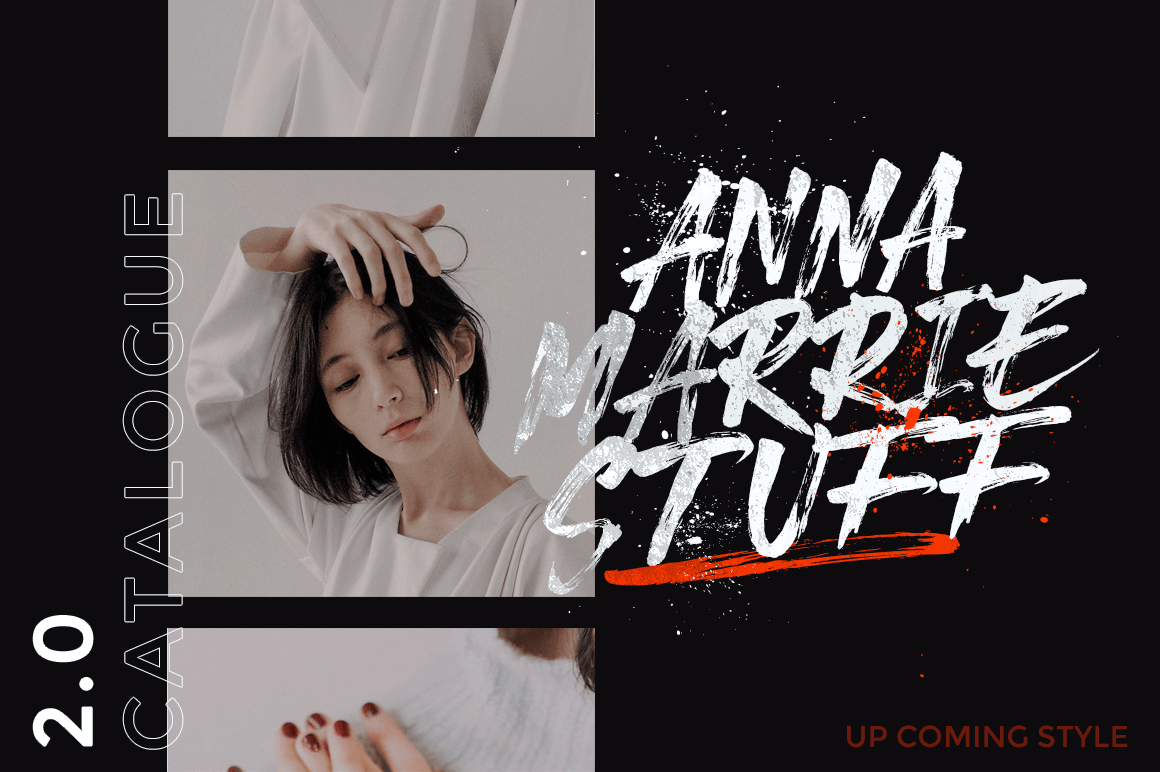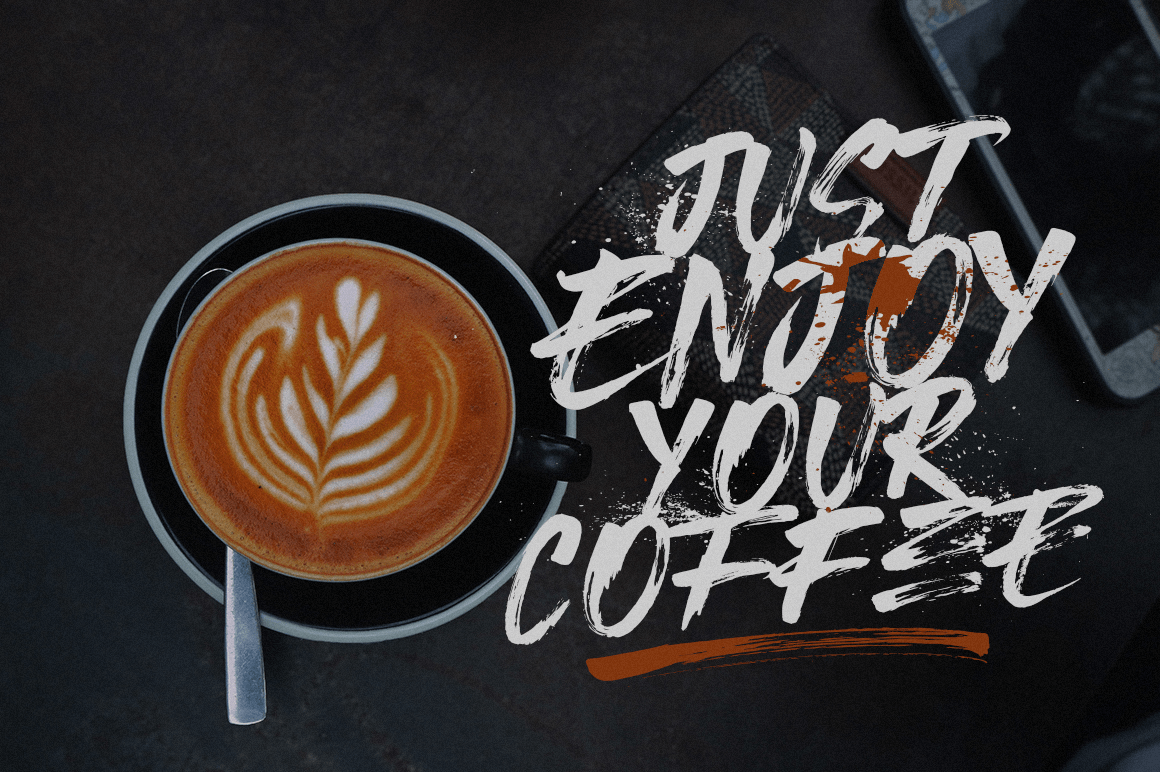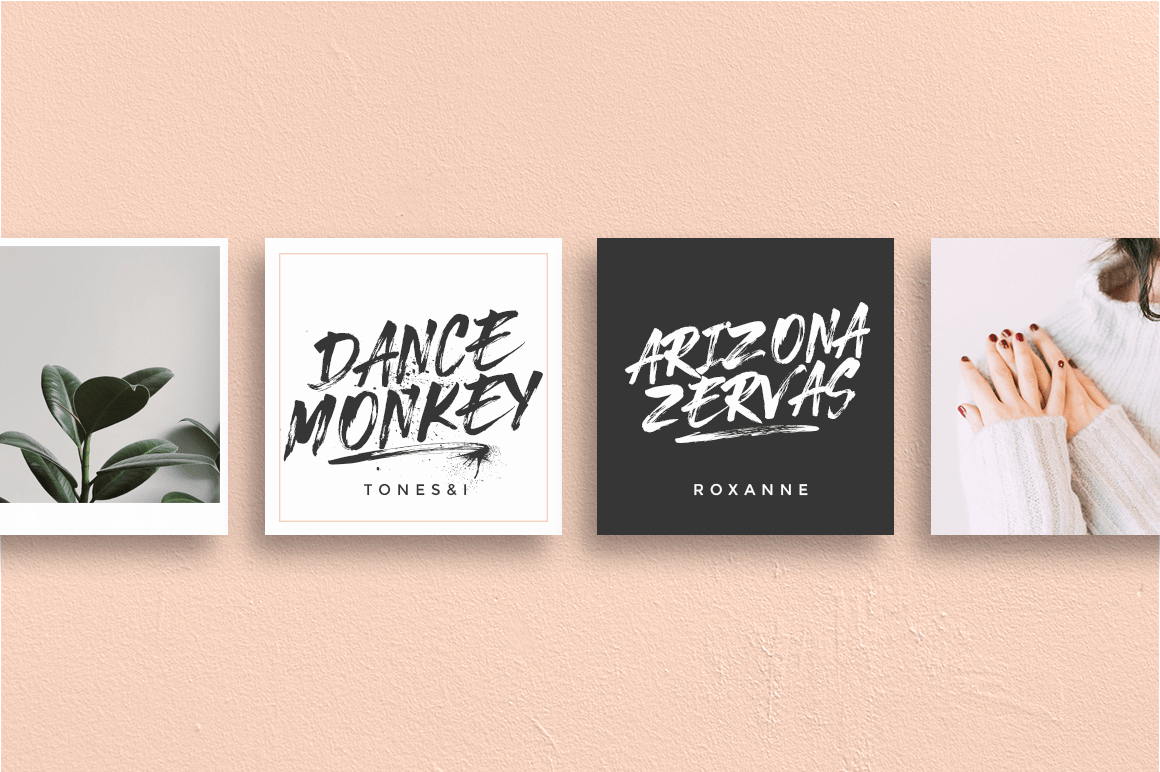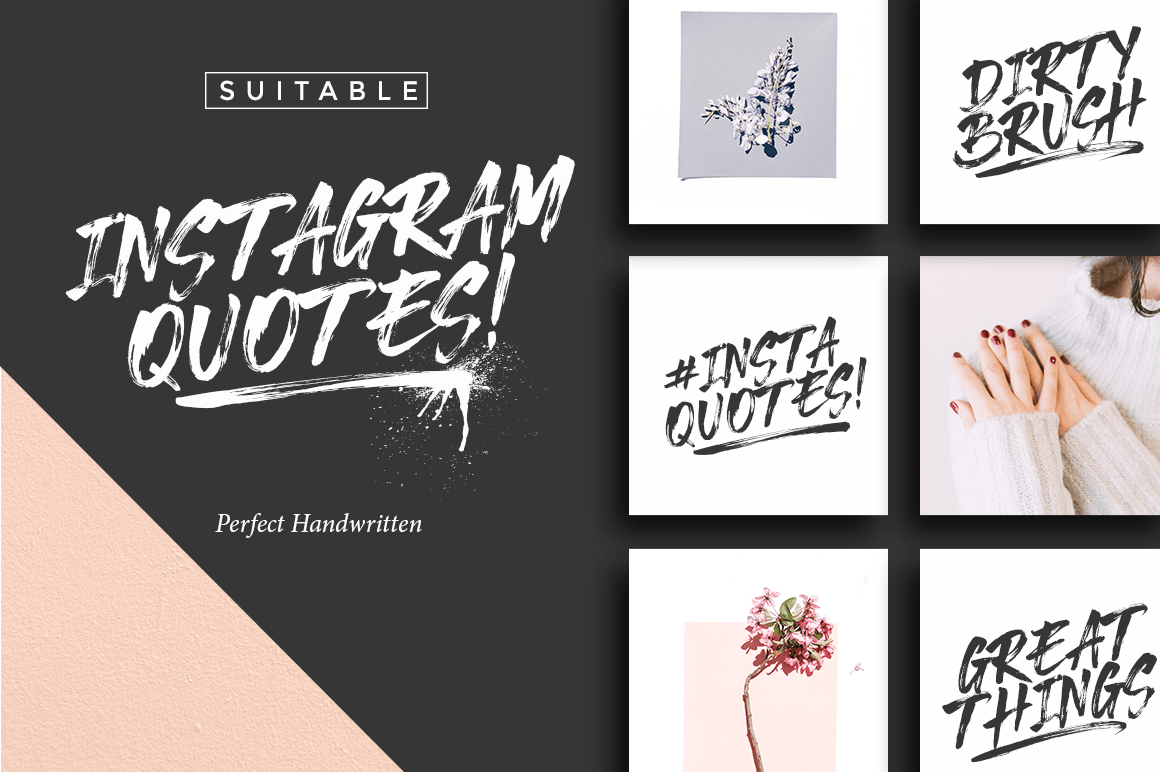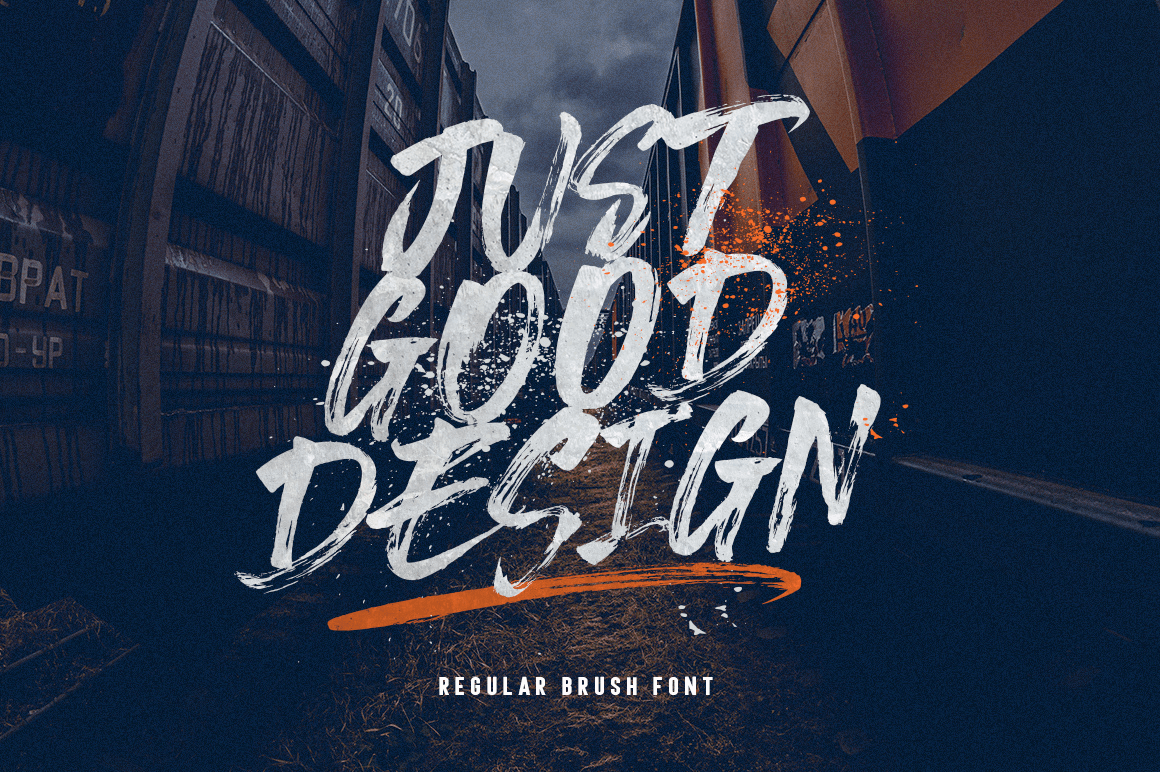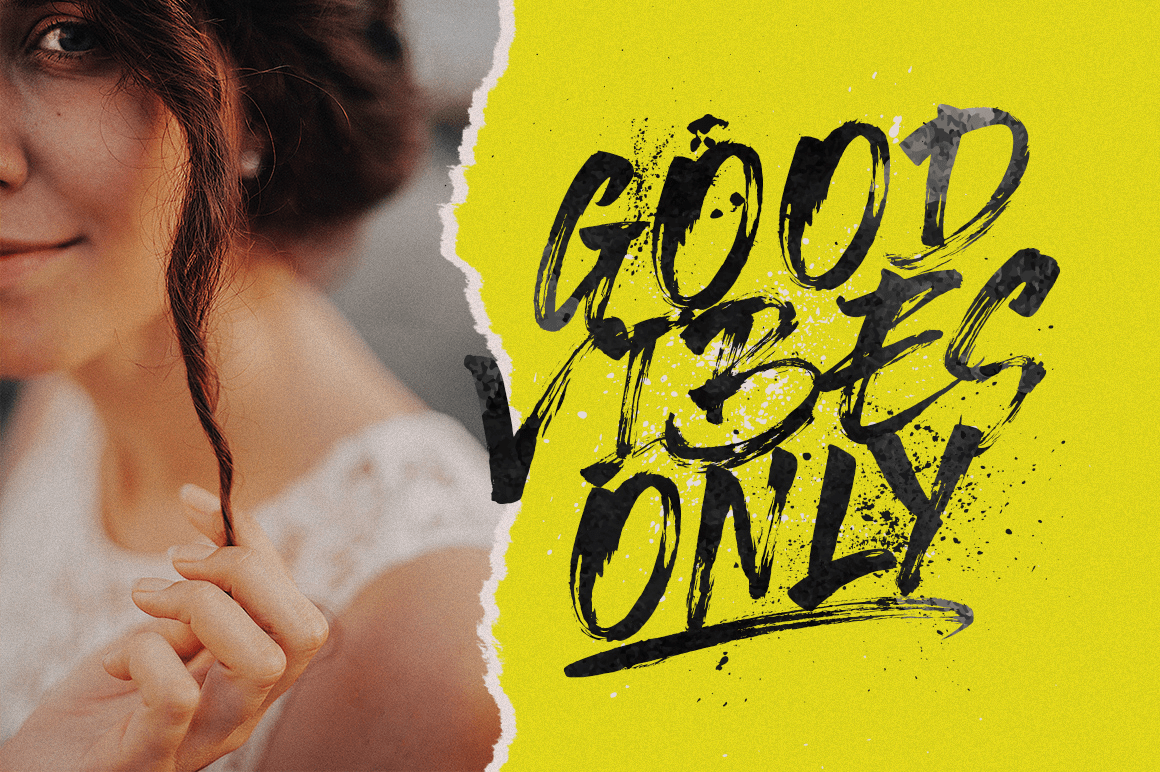
Bridgers
Font Family by Fargun Studio
Bridges is a hand-painted uppercase brush font and includes swashes. Bridges works well for logos, name tags, handwritten quotes, product packaging, merchandise, social media, greeting cards and much more.